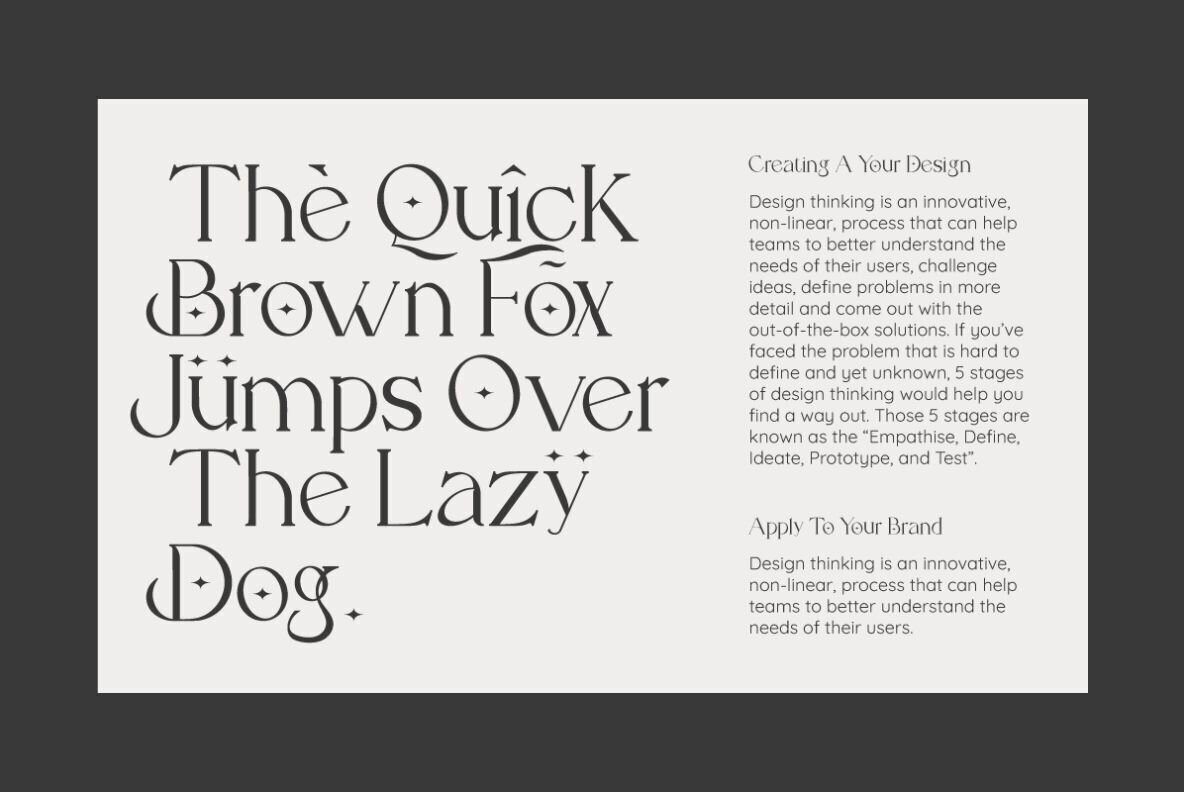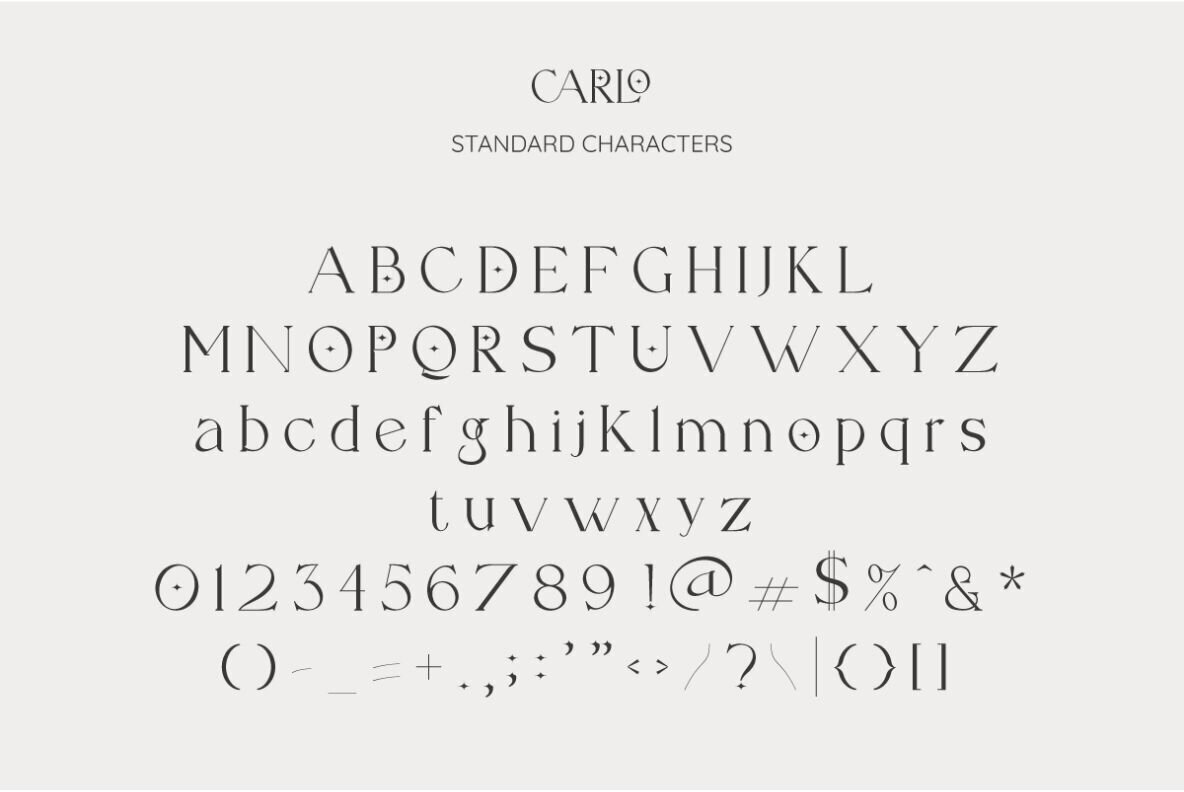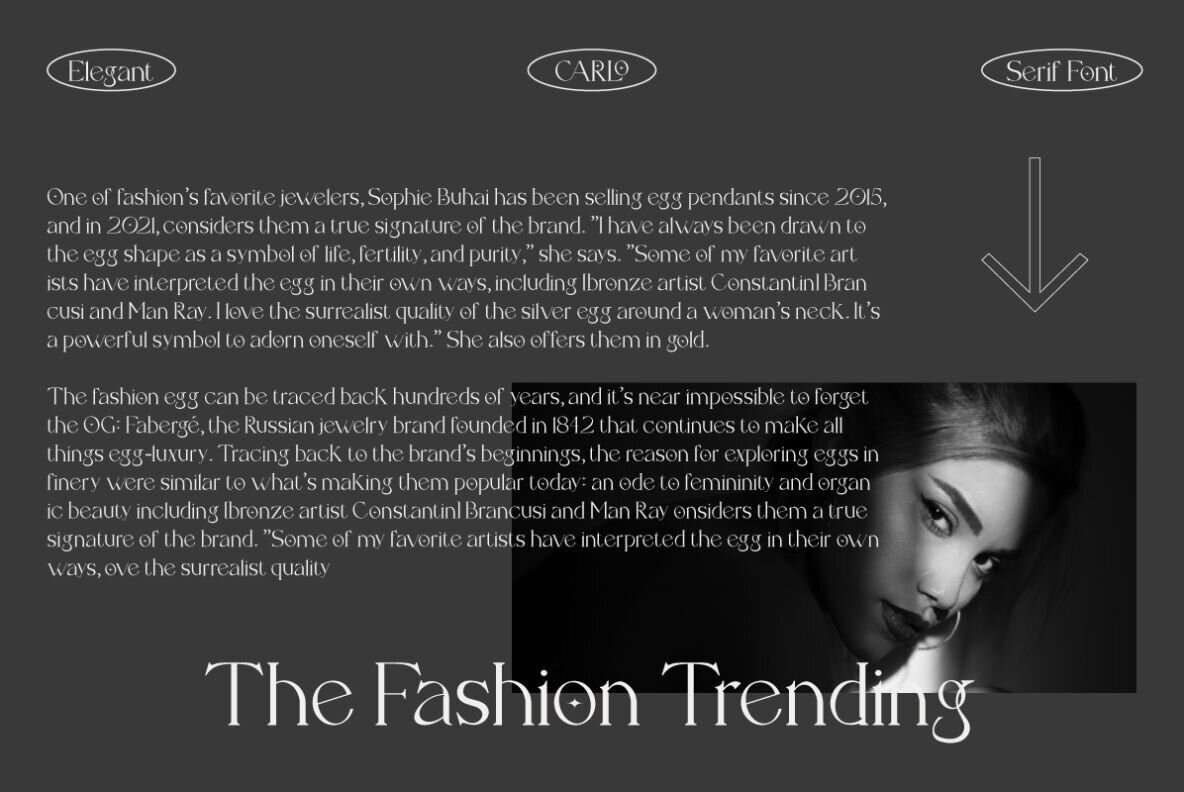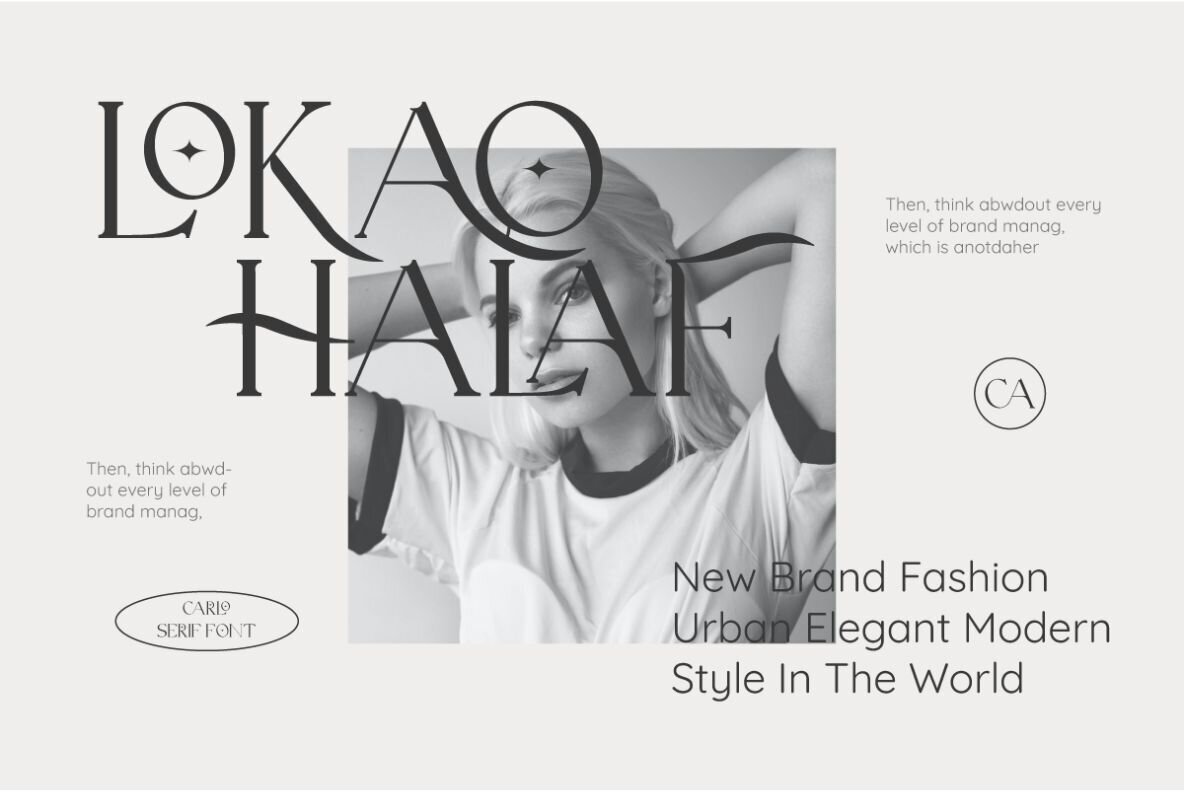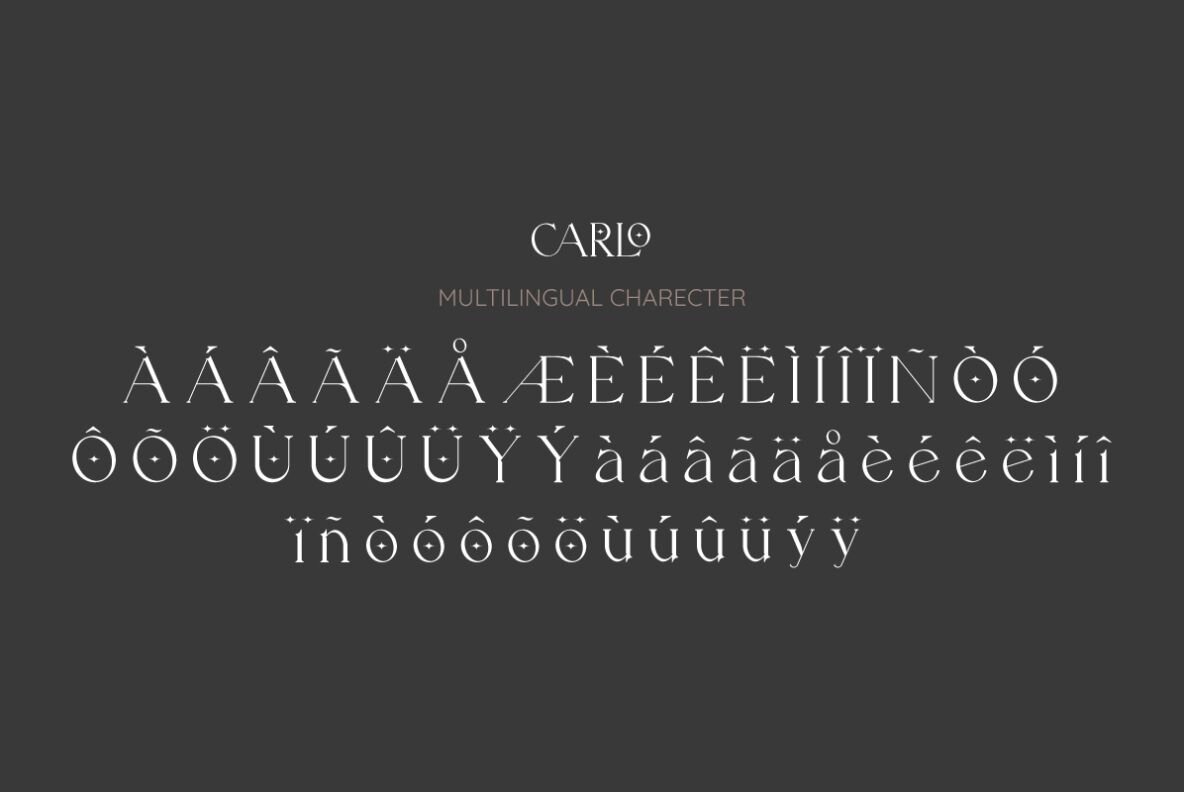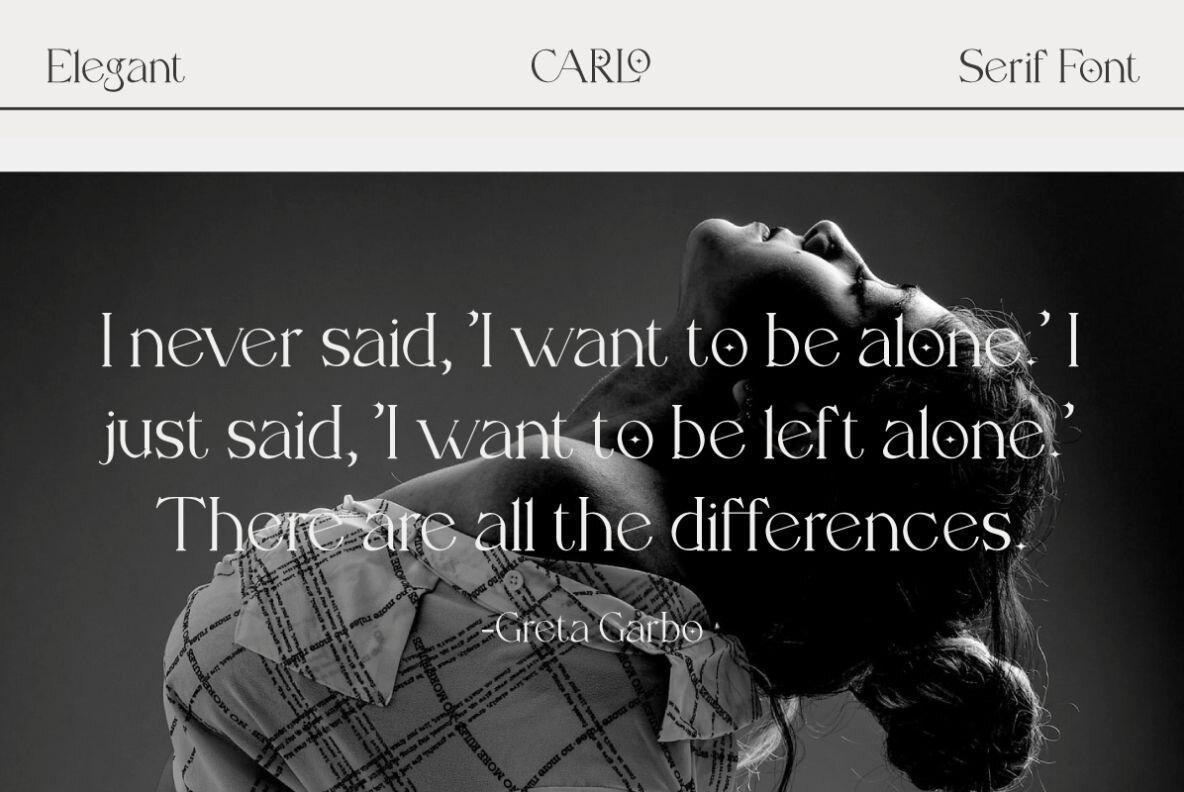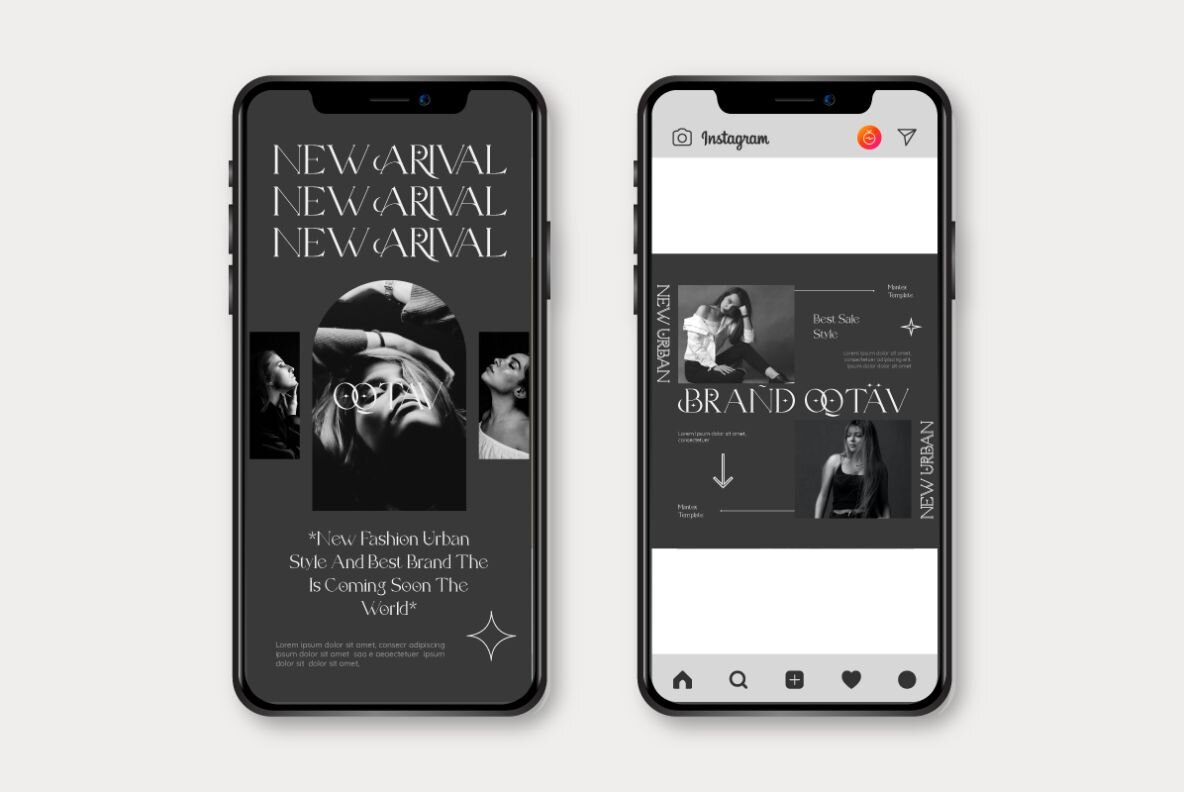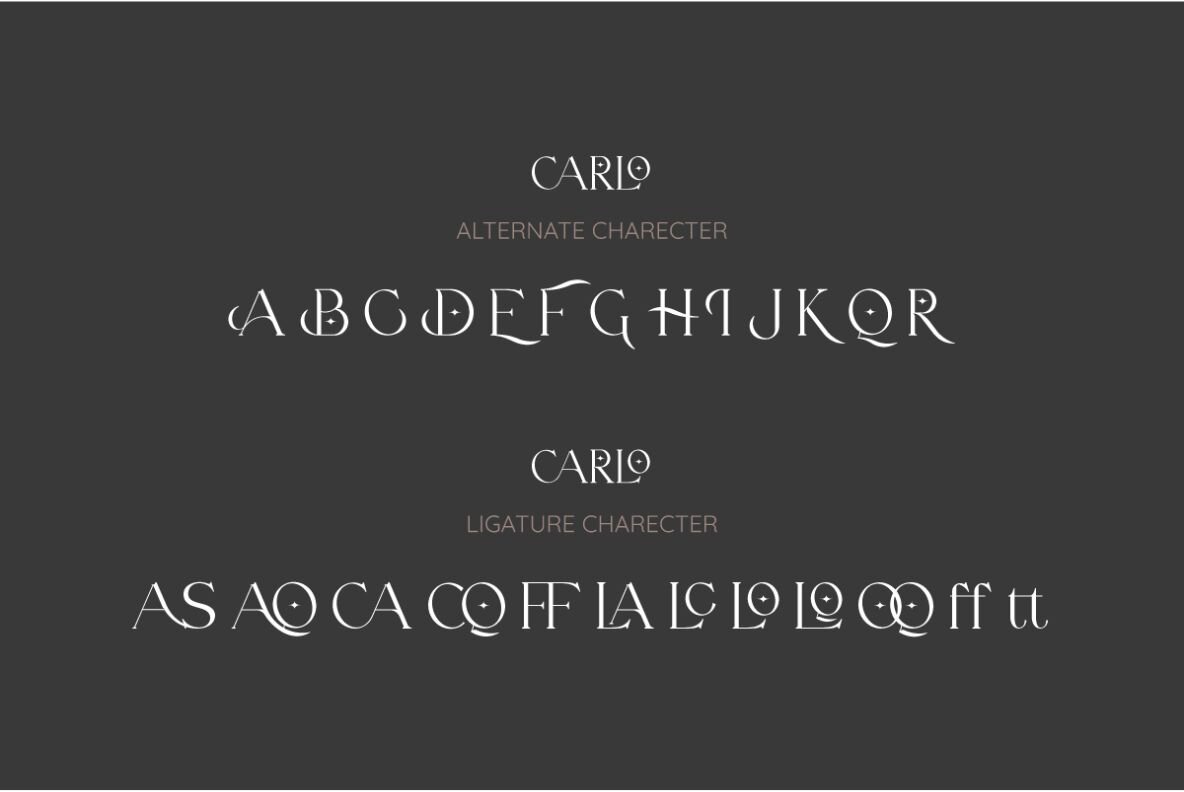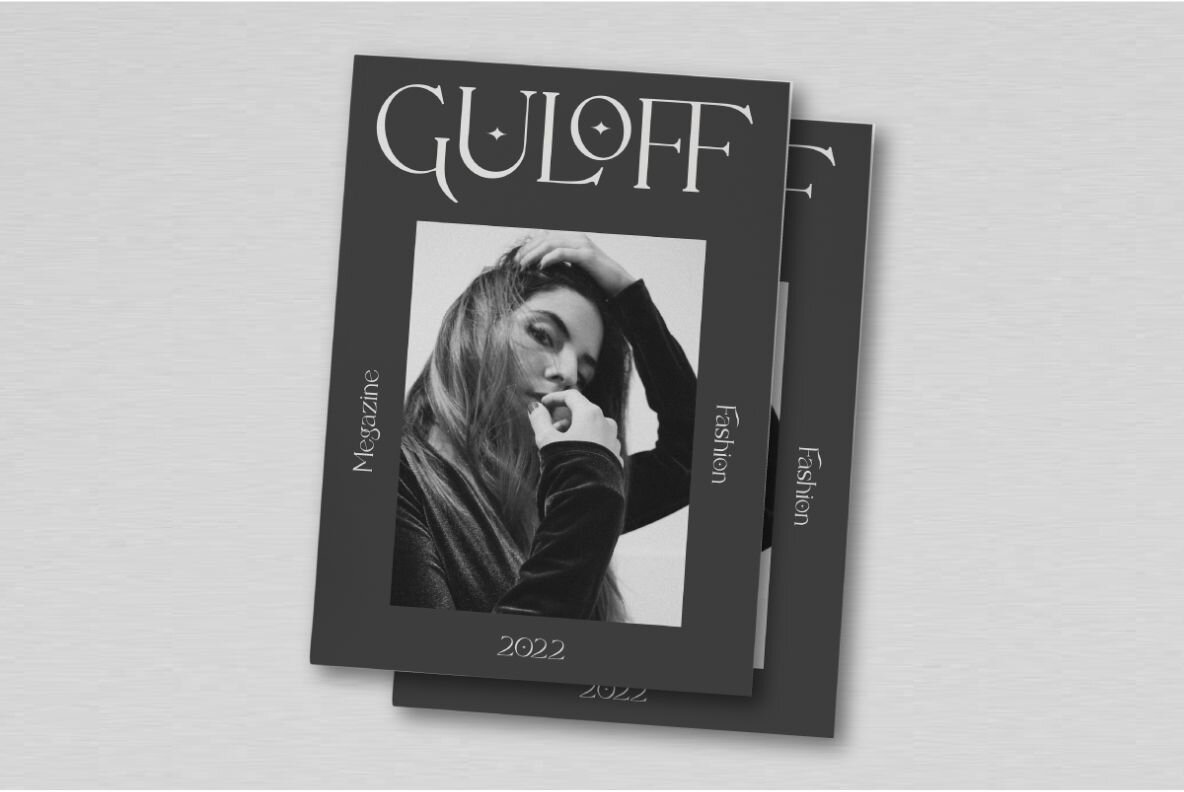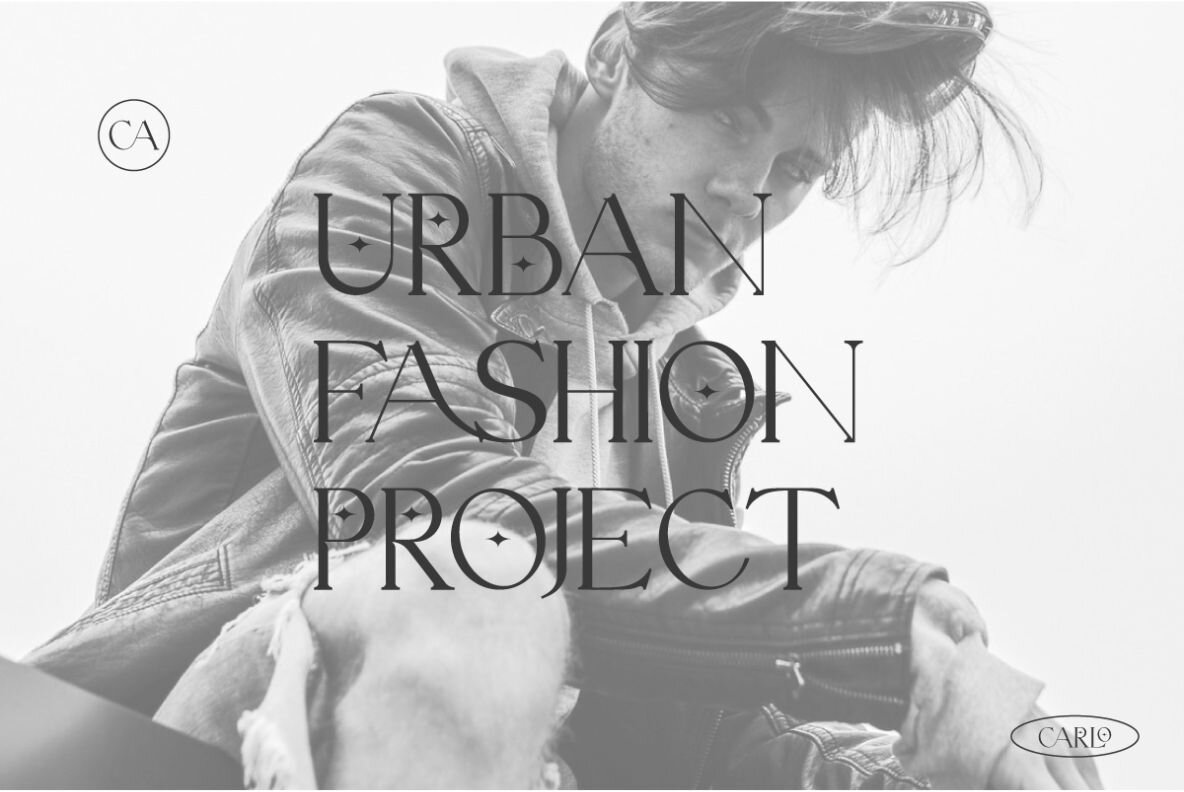
Carlo Font
Carlo
Carlo presents itself as an elegant serif font finely crafted for contemporary design needs. Featuring sophisticated characters, it seamlessly adapts to an array of creative projects, ranging from logos and quotes to branding and magazine spreads. Carlo’s modern flair makes it an exemplary choice for wedding invitations, presentations, and engaging social media content.Carlo: Elegant Serif Typeface for Modern Design